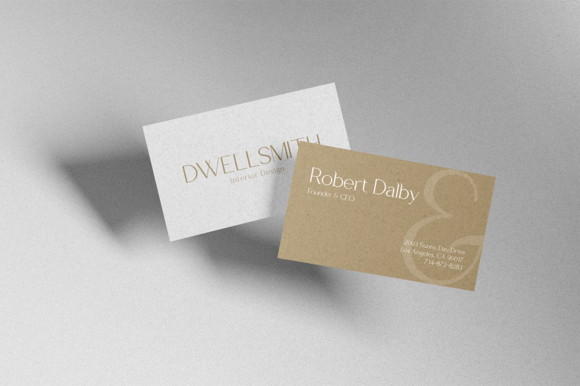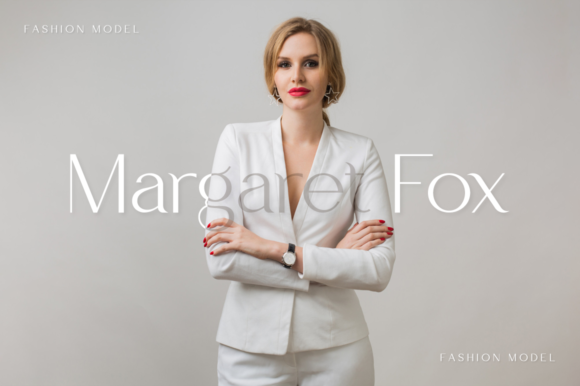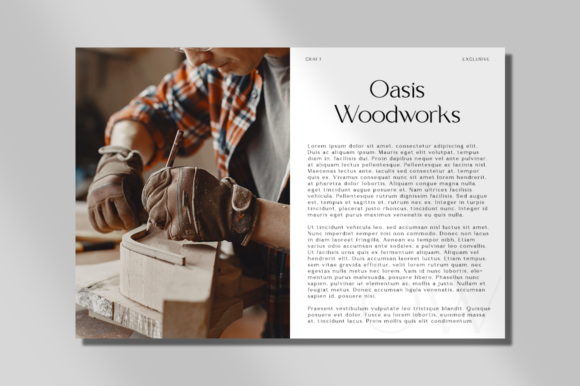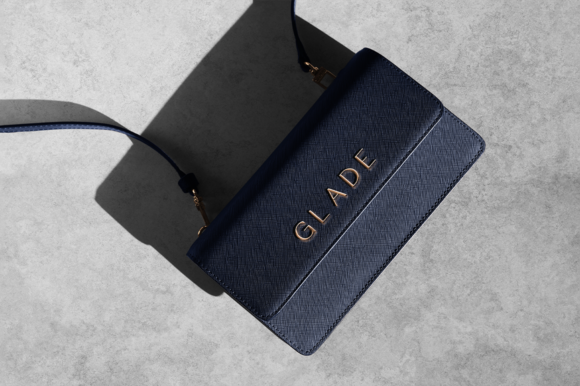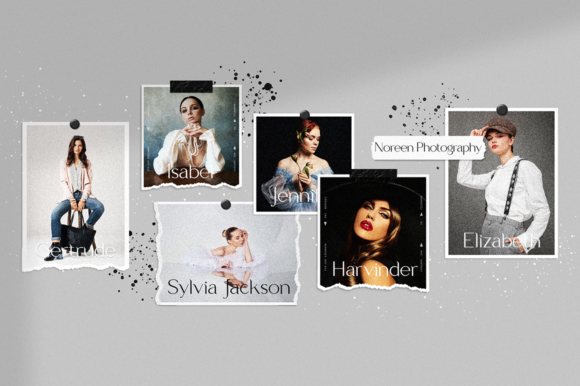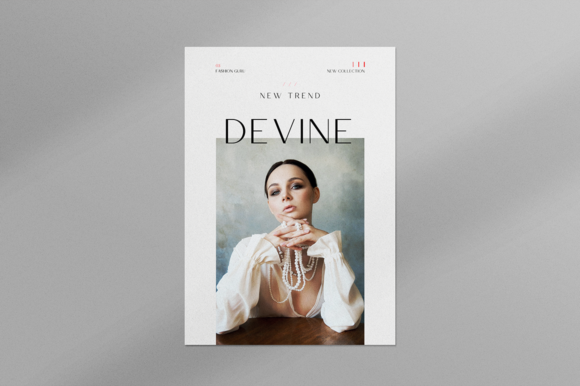
The Delirious Font: A Minimalist’s Dream Come True
I’ll never forget the time I was working on a project for a client who wanted a modern, minimalist look. I had spent hours scouring the internet for the perfect font, but nothing seemed quite right. That was until I stumbled upon the Delirious font. With its clean lines and simple design, it was exactly what I needed to bring my project to life. In this article, we’ll take a closer look at the Delirious font, its features, and how to use it to take your designs to the next level.
A Personal Review of Delirious
- ✨ Clean and minimalist design: The Delirious font is perfect for projects that require a simple, yet modern look.
- ✅ Highly versatile: This font can be used for a wide range of projects, from logos and branding to headings and body text.
- 💡 Excellent legibility: The Delirious font is easy to read, even at small sizes.
While the Delirious font is excellent, there are a few things to keep in mind:
- 🤔 Limited glyphs: The Delirious font has a limited number of glyphs, which may not be sufficient for projects that require a wide range of special characters.
- ⚠️ Not suitable for body text: While the Delirious font is legible, it’s not the best choice for large blocks of body text. It’s better suited for headings and titles.
The Story Behind Delirious
The Delirious font was designed by a team of typographers who wanted to create a clean and modern sans-serif font that would be perfect for a wide range of design projects. Inspired by the simplicity and elegance of minimalist design, the Delirious font is the result of hours of careful craftsmanship and attention to detail.
| Font Name | Delirious Font |
| Author | RockboyStudio |
Q: What is the Delirious font?
A: The Delirious font is a minimalist sans-serif font designed for use in a wide range of design projects.
Q: What are some common uses for the Delirious font?
A: The Delirious font is perfect for a wide range of design projects, including logos, branding, headings, and titles.